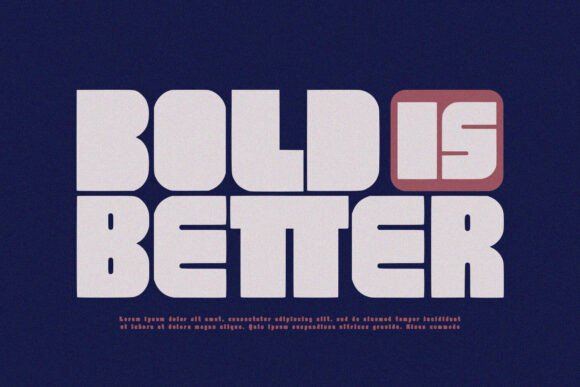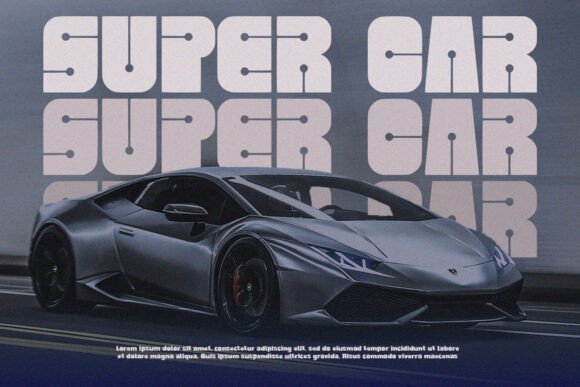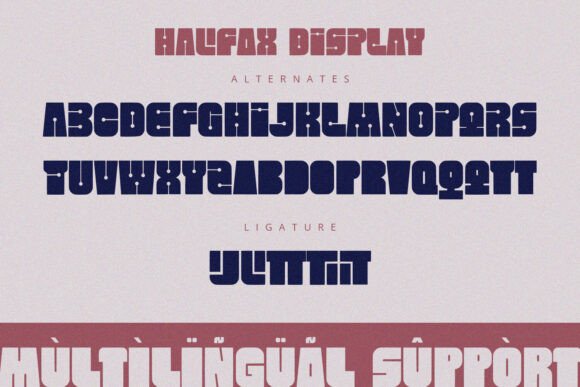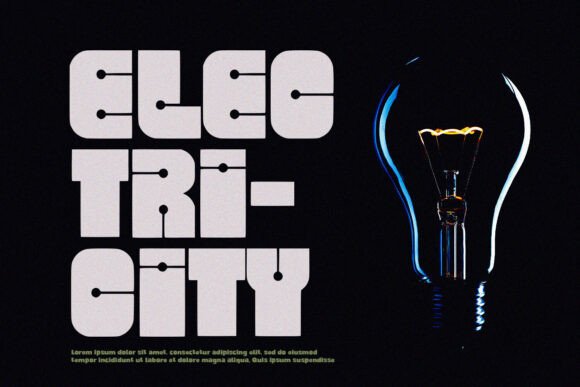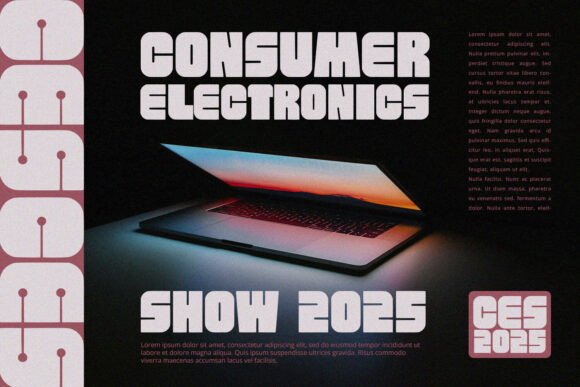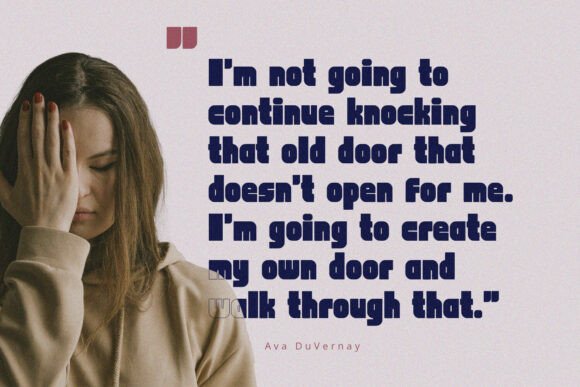
Introducing Halifax Font: A Modern and Futuristic Display Font
In the world of design, fonts play a crucial role in conveying the tone and personality of a brand or project. For designers and crafters looking for a font that exudes modernity and futurism, Halifax Display is an excellent choice. This display font is specifically designed to make a statement, and its versatility makes it perfect for a wide range of applications.
What is Halifax Display?
Halifax Display is a carefully crafted display font that boasts a modern and futuristic aesthetic. Its sleek lines, geometric shapes, and precise curves make it an ideal choice for designers seeking to create a bold and eye-catching visual identity. Whether you’re working on a branding project, logo design, or any other creative endeavor, Halifax Display is sure to make a lasting impression.
Halifax Display’s unique characteristics make it an excellent fit for various design projects, including:
- Branding: Establish a strong visual identity for your brand with Halifax Display’s modern and futuristic feel.
- Logo Design: Create a memorable logo that stands out from the crowd with this distinctive font.
- Lettering: Add a touch of sophistication to your lettering projects with Halifax Display’s clean lines and precise curves.
- Logotype: Develop a unique logotype that reflects your brand’s personality and values.
- Clothing: Use Halifax Display to create eye-catching typography for clothing, such as t-shirts, hoodies, and more.
- Poster and Magazine: Make a statement with Halifax Display’s bold and futuristic aesthetic in your posters and magazine designs.
- Packaging: Elevate your packaging design with this modern and sleek font.
- Posters and Shopping Bags: Create visually appealing posters and shopping bags that showcase your brand’s personality.
- T-shirts and Book Covers: Use Halifax Display to create striking typography for t-shirts, book covers, and other merchandise.
- Photography and Special Events: Add a touch of modernity to your photography and special events with this versatile font.
Why Choose Halifax Display?
Halifax Display offers several benefits that make it an attractive choice for designers and crafters:
- Unique and Modern Aesthetic: Halifax Display’s futuristic design ensures your project stands out from the crowd.
- Versatility: This font can be used for a wide range of applications, from branding and logo design to packaging and merchandise.
- Ease of Use: Halifax Display is easy to read and works well in various contexts, making it a practical choice for designers.
- High-Quality Design: This font is carefully crafted to ensure precise curves and clean lines, resulting in a professional and polished look.
Tips for Using Halifax Display
To get the most out of Halifax Display, consider the following tips:
- Pair with Complementary Fonts: Combine Halifax Display with other fonts to create a harmonious and visually appealing design.
- Experiment with Colors: Take advantage of Halifax Display’s versatility by experimenting with different colors and textures.
- Pay Attention to Kerning: Ensure optimal kerning to maintain the font’s clean and modern aesthetic.
Halifax Display is a powerful tool for designers and crafters seeking to create a modern and futuristic visual identity. Its versatility, unique aesthetic, and high-quality design make it an excellent choice for a wide range of applications. Whether you’re working on a branding project, logo design, or any other creative endeavor, Halifax Display is sure to make a lasting impression.